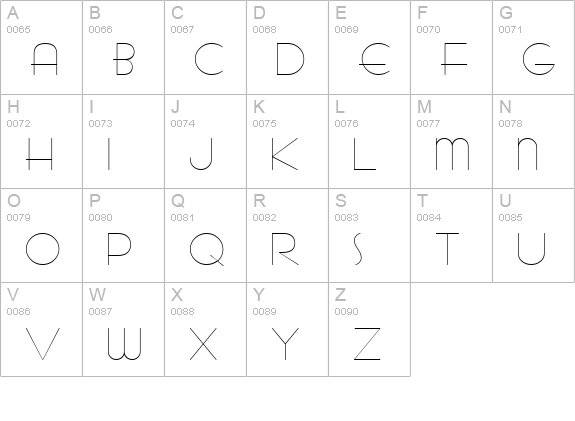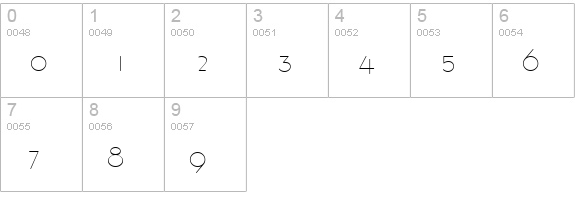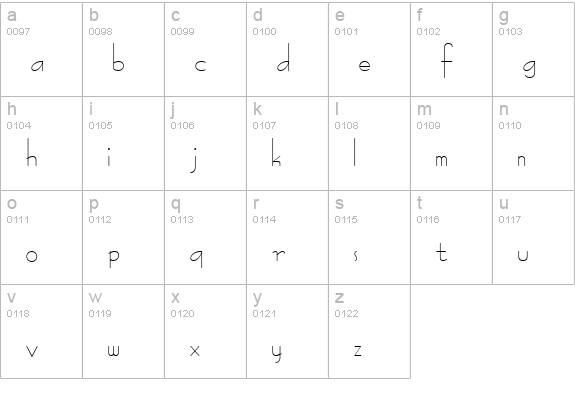
Bernhard Fashion ICG Alt Font Details
Bernhard Fashion ICG Alt is a stylish and elegant font that exudes sophistication and class. With its sleek lines and well-balanced curves, this typeface is perfect for adding a touch of luxury to your designs. The alternate version of Bernhard Fashion ICG offers a unique twist to the classic font, making it stand out even more. Whether you are working on branding, editorial design, or any other creative project, this font is sure to make a statement. The best part is that Bernhard Fashion ICG Alt is freely available for download at FontsMarket.com. This means you can easily access and use this beautiful font in your projects without any hassle. Don't miss out on the opportunity to elevate your designs with the timeless elegance of Bernhard Fashion ICG Alt.